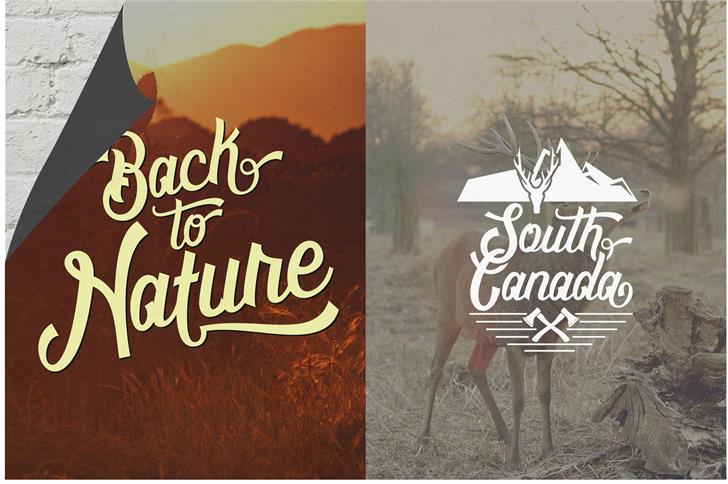
Free Montreal Script Font
Introducing you to the absolutely beautiful free montreal script font. This is a downloadable free typeface file brought to you by Font Space. Easily amaze your audience with this fancy font and make your graphic designs pop up from the crowd.